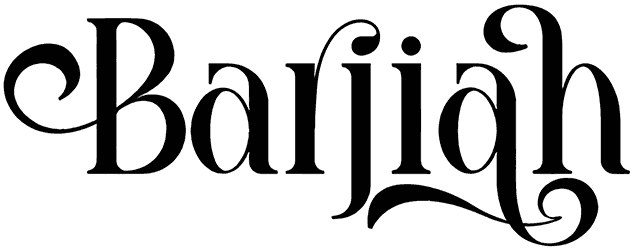
Barjiah Font
If you desire to impress a lot of people with varied tastes, using a classic and humble letterform can be a perfect choice. Barjiah font with A-Z characters can give such a timeless visual to any design. Just let’s try this book cover font for an academic website or any creative project that you are working on, and make it unforgettable.